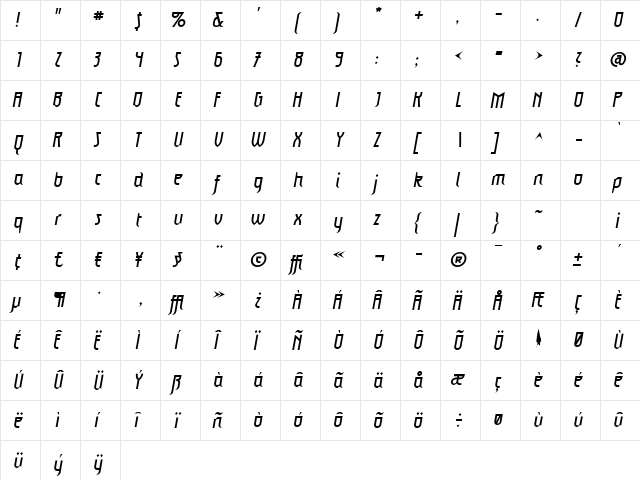
close NessItalic
close takes a measured approach to typography — its balanced proportions and neutral character make it a reliable workhorse for both digital and print work. The dynamic lean of this cut emphasises speed and emphasis in any layout.